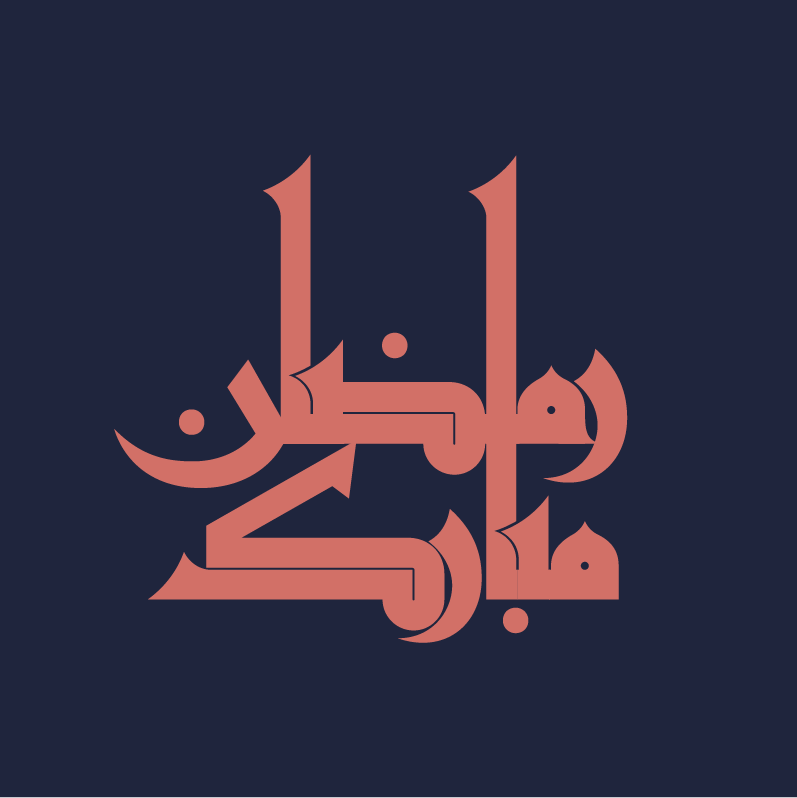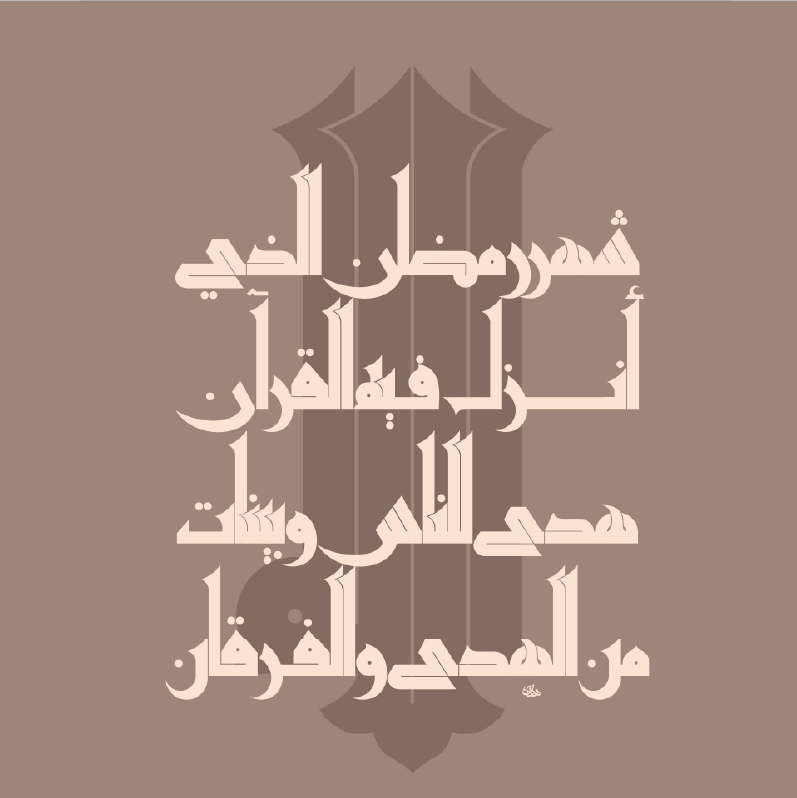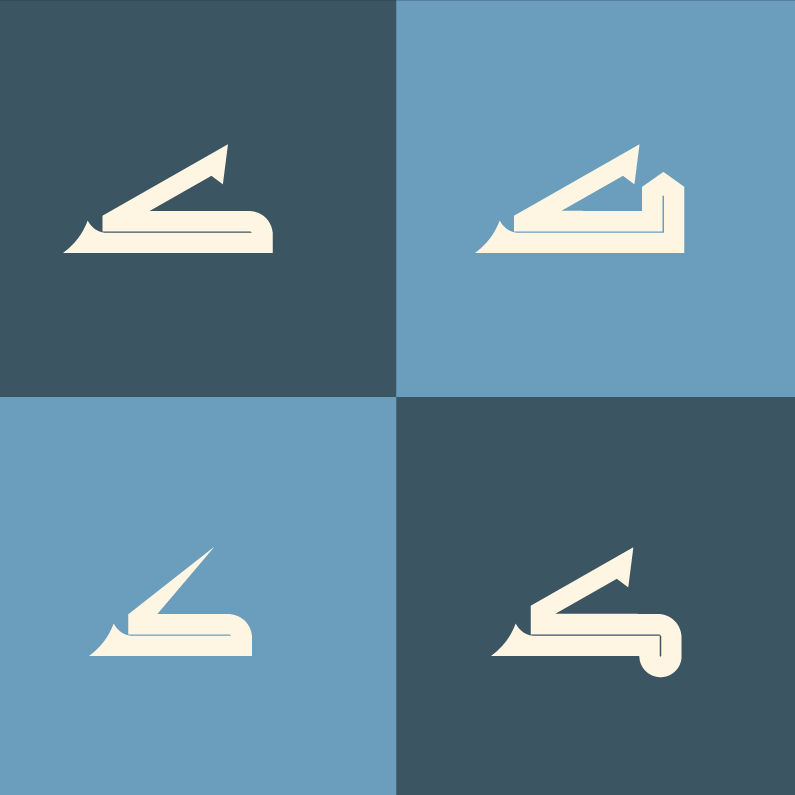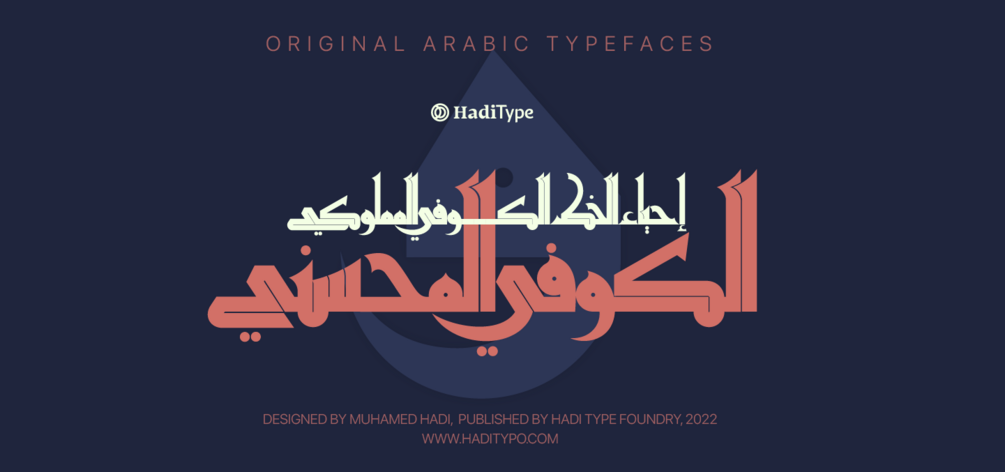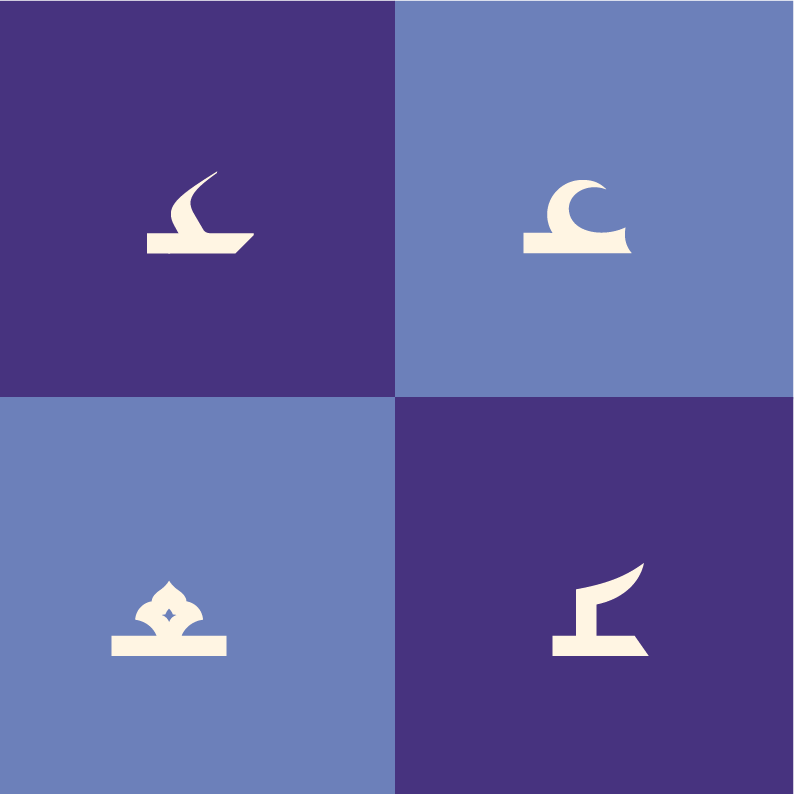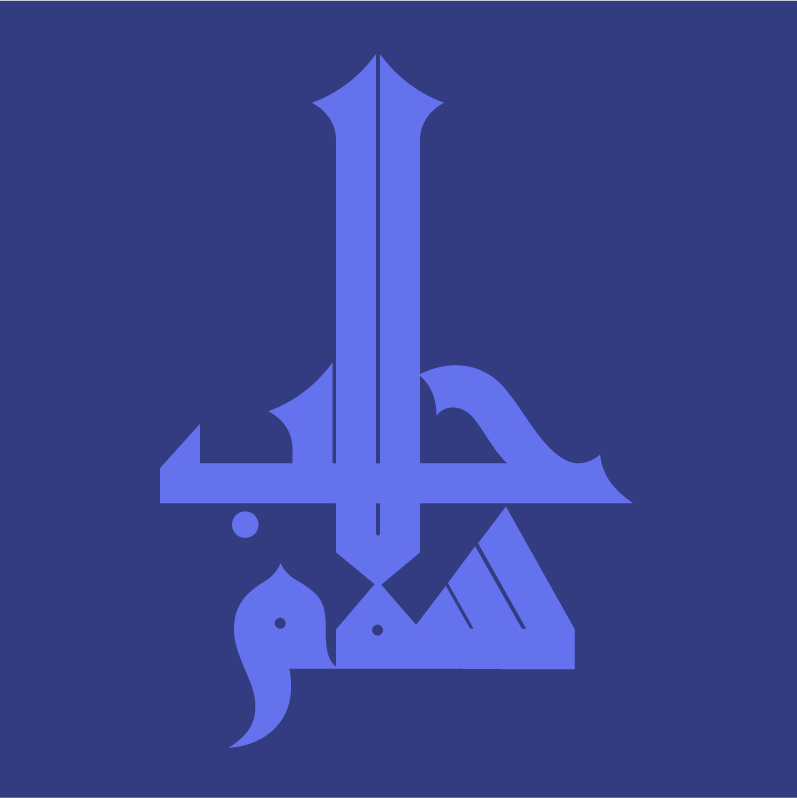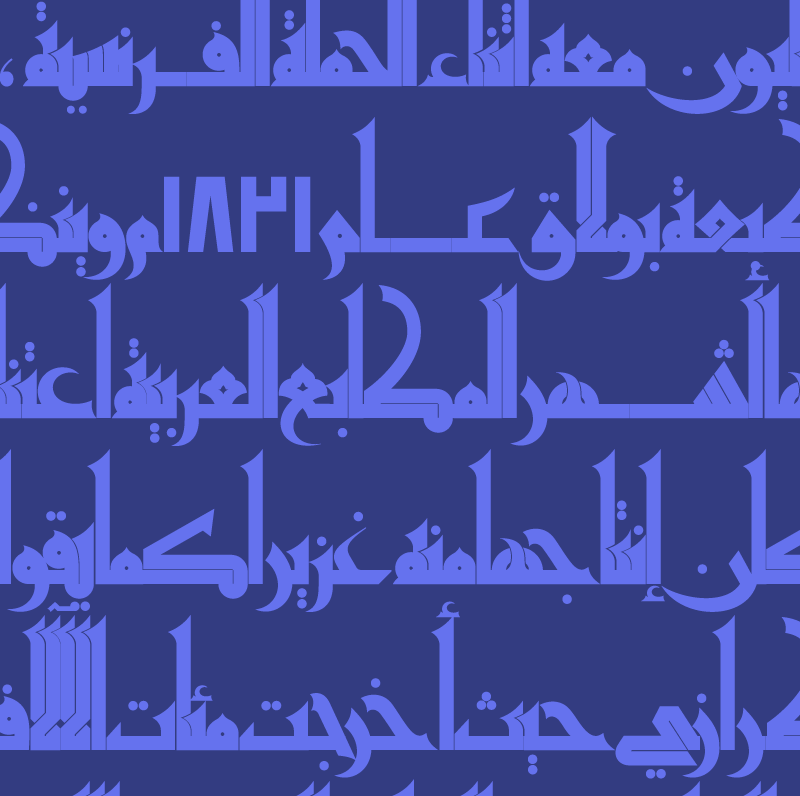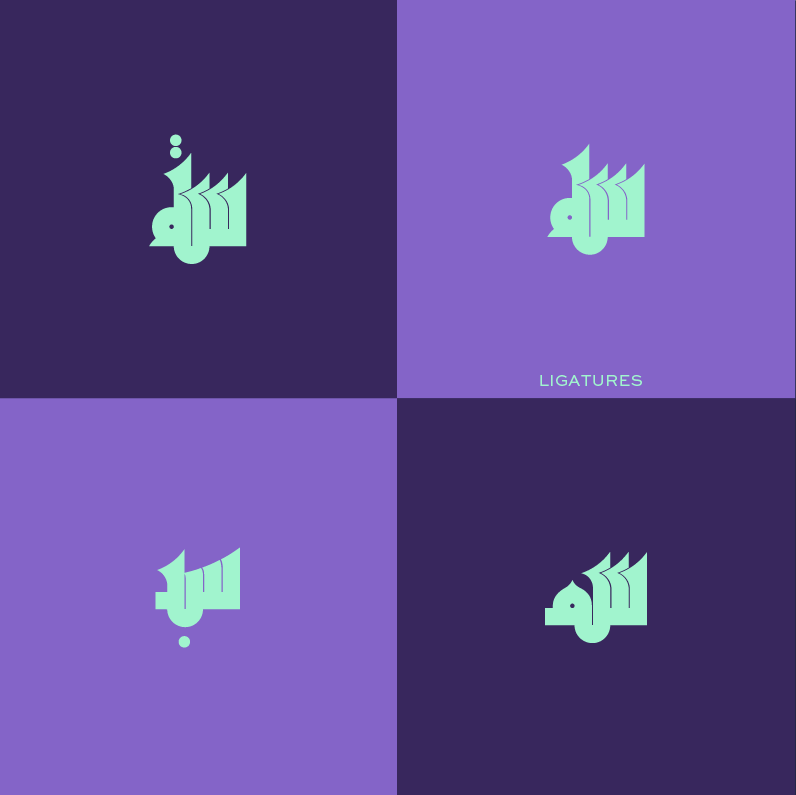
HT Muhsini VF
“Muhsini” is a postmodern typeface drawn and engineered by Muhammed Hadi, paying homage to the evolution of the Mamlouk Kufic over the years.“Muhsini” was built upon the basis established by the Mamlouk Kufic inscriptions gracing the walls of the sultan Hassan madrasa and mosque in Cairo, Egypt.
Based on such illustrious eighth-century AH (fourteen-century AD) inscriptions, “Muhsini” assembles a complete Arabic alphabet Kufic typeface that is not even present at the sultan Hassan madrasa.
Full with OpenType features, updated proportions, details, and modern aesthetics, “Muhsini” maintains the traditional serenity of the Mamlouk Kufic typeface.
“Muhsini” is rich with letter variants, with 623 glyphs it provides proper letterforms for automated contextual relationships. With such wealth of glyph variations, a great variety of Swash and Flourish letters are provided by “Muhsini” to meet all graphic design needs.